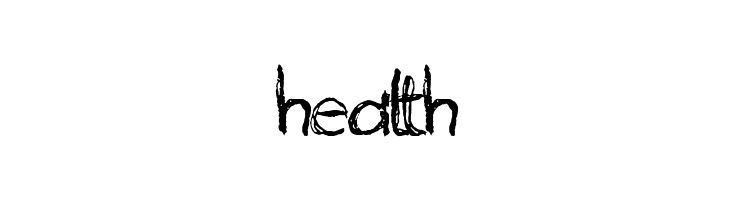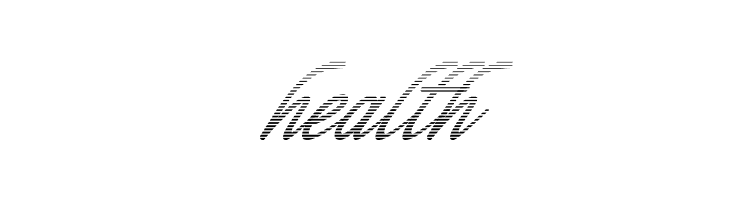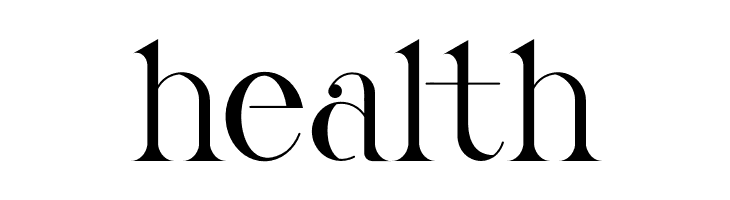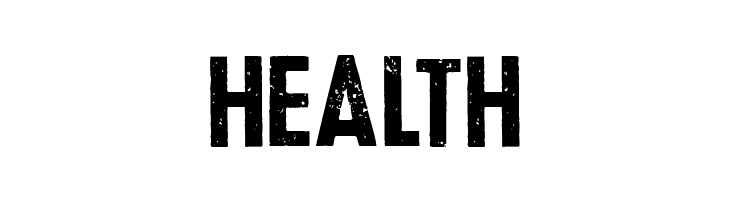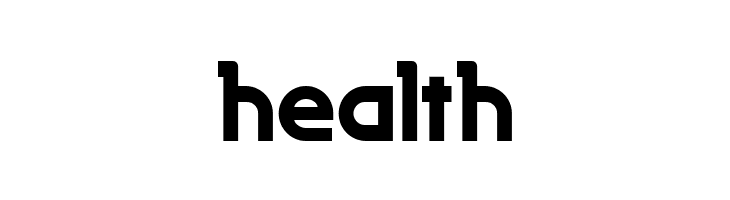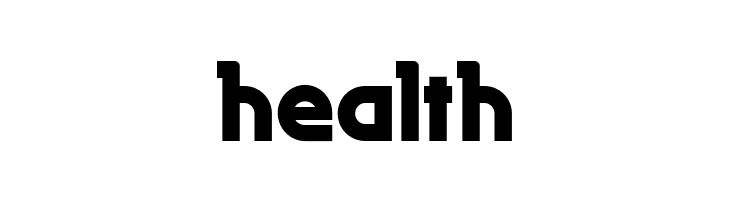
A modern decorative serif font with geometric accents and artistic flair.
A tall, narrow font with Art Deco influences and elegant serifs.
A bold, striped script font with flowing curves and a decorative style.
A modern, geometric font with clean lines and a minimalist aesthetic.
A bold, geometric font with a modern aesthetic and strong presence.
A bold, geometric font with strong, uniform strokes and a modern style.
A playful, handwritten font with tall, narrow letterforms and consistent stroke width.
A textured, hand-drawn font with a playful and artistic style.
A bold, distressed font with a vintage, rugged appearance.
A bold, playful font with exaggerated, chunky letterforms.